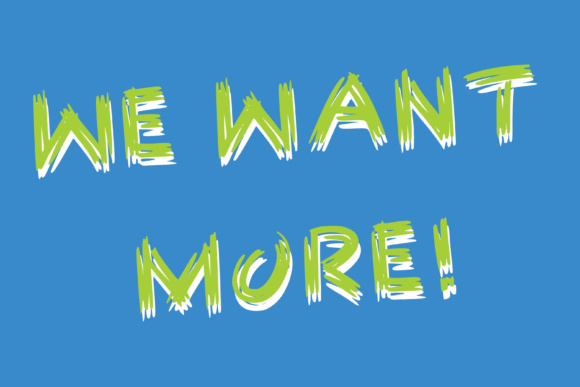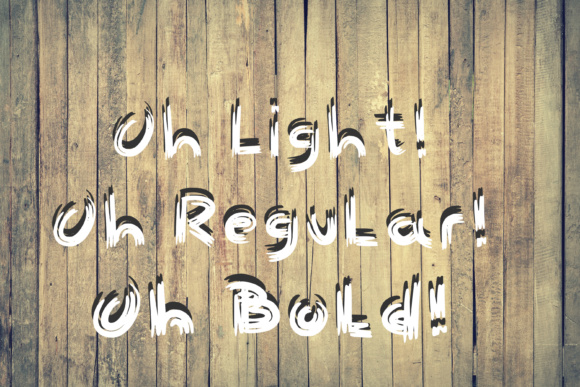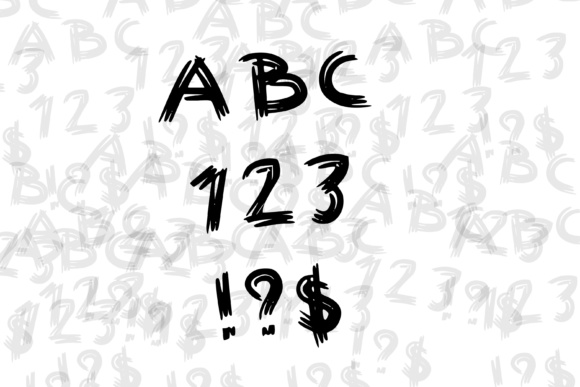
Introduction to Fresh Today Font
You’ve seen them, haven’t you? The vibrant hand-painted signs at your local fruit stand, proudly proclaiming today’s fresh deals in bold, playful lettering. Those same signs are often a staple at music festivals and events, where handmade posters are pinned up on streets and buildings, adding a touch of whimsy to the atmosphere. It’s a design aesthetic that’s equal parts charming and effective.
For designers looking to add a special touch to their creative projects, the Fresh Today Font is a game-changer. This hand-painted brush stroked font is designed to evoke the feeling of a handmade sign, with its textured, high-quality strokes that seem to leap off the page. And with a transparent background, you can easily drop it into your design without worrying about any unwanted distractions.
Key Features of Fresh Today Font
- High-quality design resource for creative projects, perfect for those looking for a unique and modern touch.
- Transparent background, making it easy to use with any design or image, and ensuring a clean and professional look.
- Includes a range of characters and glyphs, including uppercase and lowercase letters, numbers, and punctuation marks.
- Unique characteristics include a bold and playful style, making it perfect for titles, headings, and other prominent design elements.
Honest Review: Fresh Today Font
I recently had the chance to use the Fresh Today Font in a creative project, and I was pleasantly surprised by its quality and versatility. As a design resource, it’s a great addition to any font library.
Here are some things that work well with the Fresh Today Font:
- ✨ The high-quality design makes it suitable for a wide range of creative projects, from logos to brochures.
- ✨ The font has a transparent background, which allows for easy customization and layering.
- ⚠️ The font may not be suitable for very small text sizes, as the letters can become difficult to read.
- ⚠️ The font family is relatively small, so users may not have as many style options as they would with more extensive font libraries.
Overall, I was impressed with the Fresh Today Font and would definitely consider using it again in the future. It’s a great resource for designers looking for a high-quality, free font that can add a touch of style to their creative projects.
The Fresh Today Font is a high-quality, free download that can be used for a variety of creative projects. With a transparent background, this font is perfect for designers who want to add a touch of modernity to their work.
For the most out of the Fresh Today Font, use it for headings and titles in your designs. This font is perfect for modern websites, social media graphics, and marketing materials. It’s also great for creating eye-catching signage and posters.